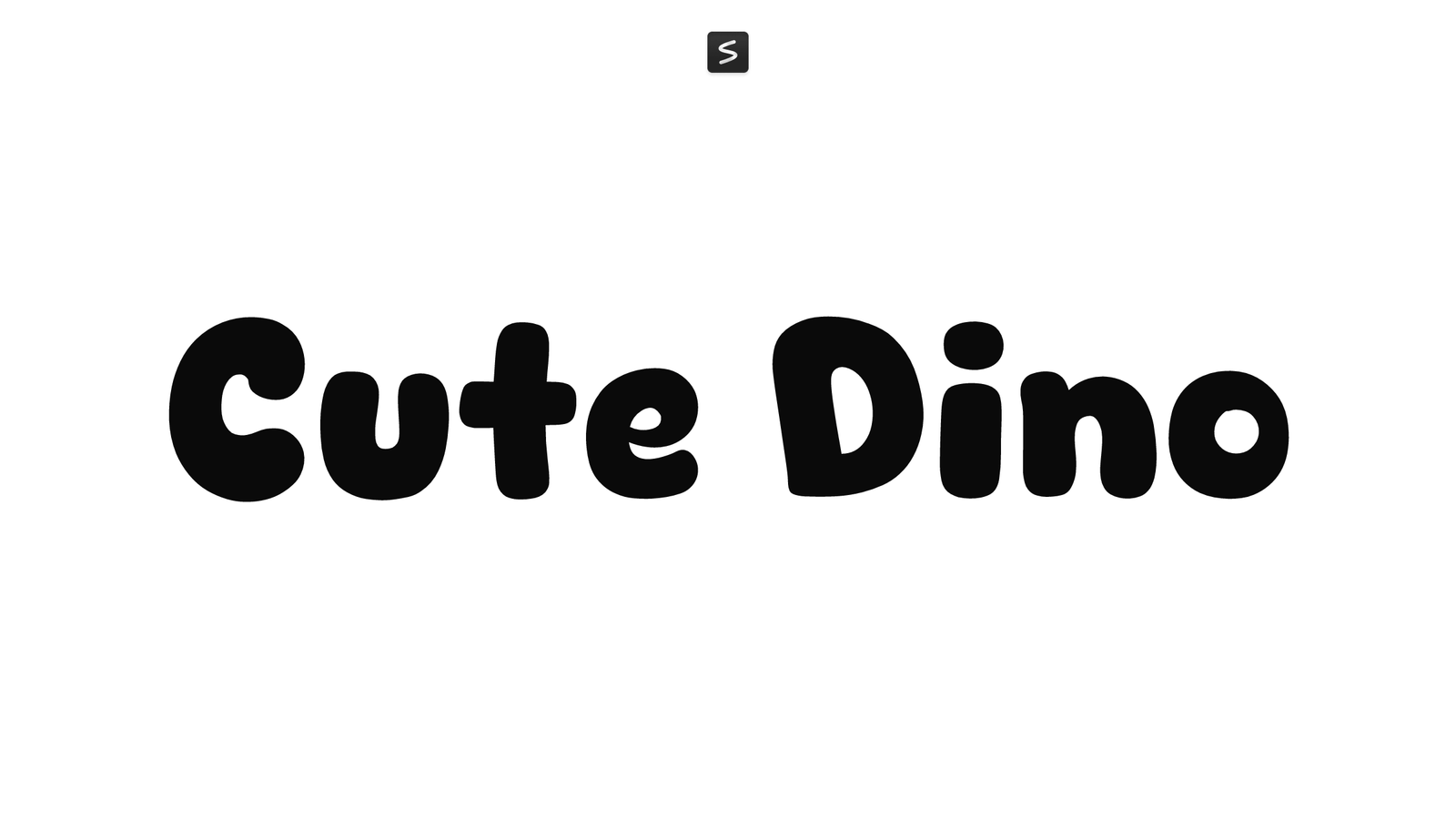
Cute Dino is a chunky, rounded sans-serif designed by Khurasan with soft curves and consistent weight that reads well at any size. Its playful proportions and generous letterforms give it a friendly, approachable character that works naturally in informal and youthful contexts.
The font’s uniformly rounded terminals and lack of sharp angles create a gentle, almost bubbly quality. It’s straightforward and legible without feeling sterile, making it equally at home in a children’s book cover or a casual social media graphic. Its chunky weight means even small text stays visible, while larger sizes let the charm come through.
Cute Dino suits projects aimed at younger audiences: picture books, toy packaging, playful logos, educational materials, game UI, and casual branding. It’s a no-fuss choice when you need something warm and readable without complexity.